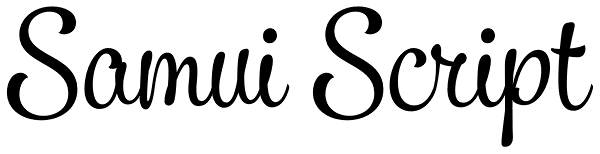
Samui Script
Named for the island that I've had the pleasure of calling home for over a year now, Samui Script is a lovingly made, hand-lettering-style, script font, with a bouncy baseline and exuberant character. Taking mid 20th century commercial lettering as...